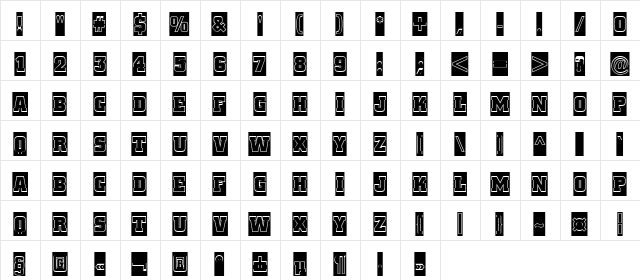
a_CityNovaTtlCmGr Regular
Design Context for a_CityNovaTtlCmGr Typeface
a_CityNovaTtlCmGr is a composed and adaptable typeface that performs quietly and consistently across a wide range of design contexts.